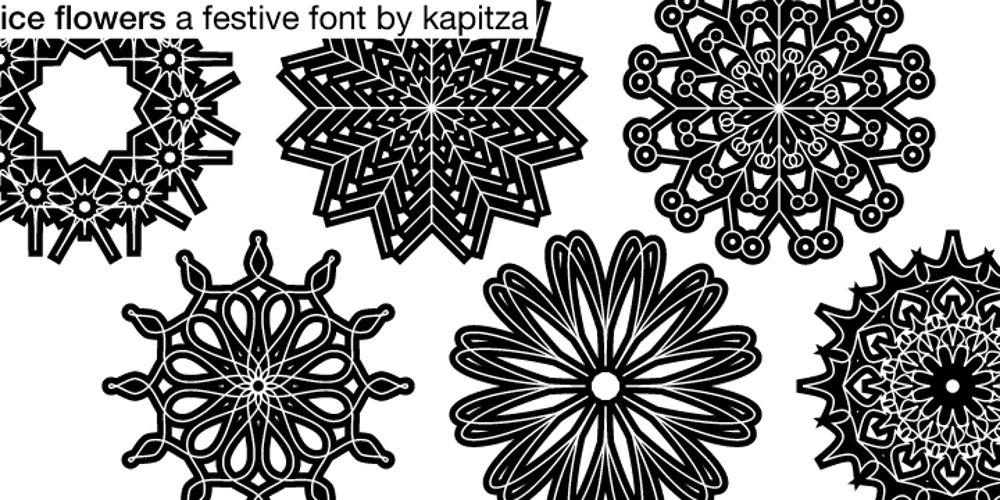
Ice Flowers Font Family was designed by published by kapitza. Ice Flowers contains 1 styles and family package options. Kapitza’s 2009 Ice Flowers font is a derivative of their snowflake font Snow. It is a much bolder interpretation of the theme, with strong black and white contrasts. The graphic style of Ice Flowers is inspired by 1960s folk art and embroidery.